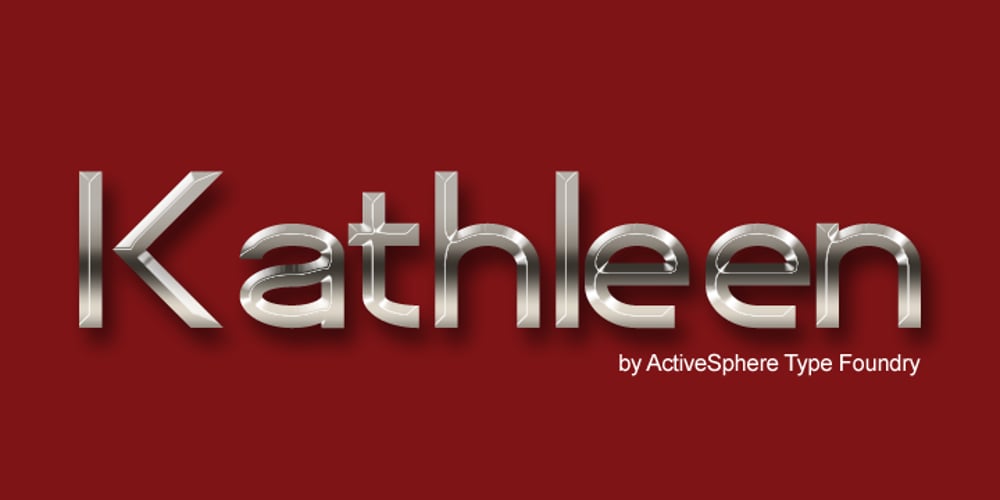
Kathleen Sans Font Family was designed by Ronnie Dela Cruz and published by ActiveSphere. Kathleen Sans contains 6 styles and family package options. Kathleen Sans is a geometric sans-serif display font and works best in text and display applications, such as posters, headline, magazine, logos, titles, product branding, corporate branding and publishing. The Kathleen Sans font family has three weights: Light, Regular, and Bold, each available in italic, making a total of six styles. Each style has a full upper and lower-case, accents, punctuation and a selection of monetary symbols.